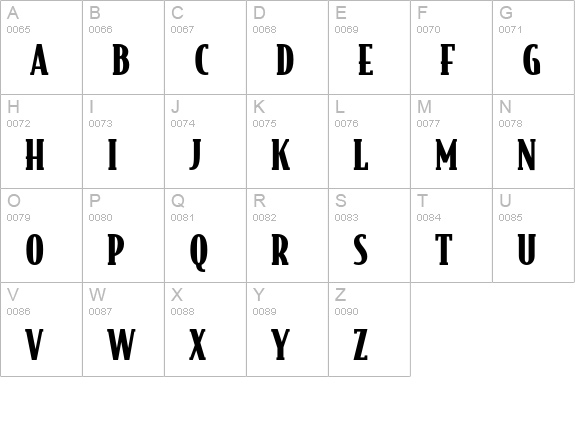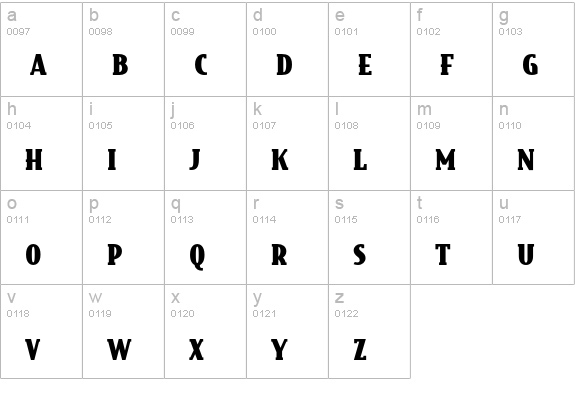
BodegaSerif-BlackSmallcaps font exudes a sense of elegance and sophistication with its bold and striking appearance. The sharp serifs and small caps give this typeface a timeless and classic feel, making it ideal for projects that require a touch of refinement. What makes BodegaSerif-BlackSmallcaps even more appealing is that it is available for free download at FontsMarket.com. This means that you can easily access this high-quality font for your design projects without any cost. Whether you're working on branding materials, invitations, or editorial layouts, BodegaSerif-BlackSmallcaps is sure to make a statement and elevate your designs to the next level. With its versatility and stylish design, this font is a must-have for any designer looking to add a touch of sophistication to their work.